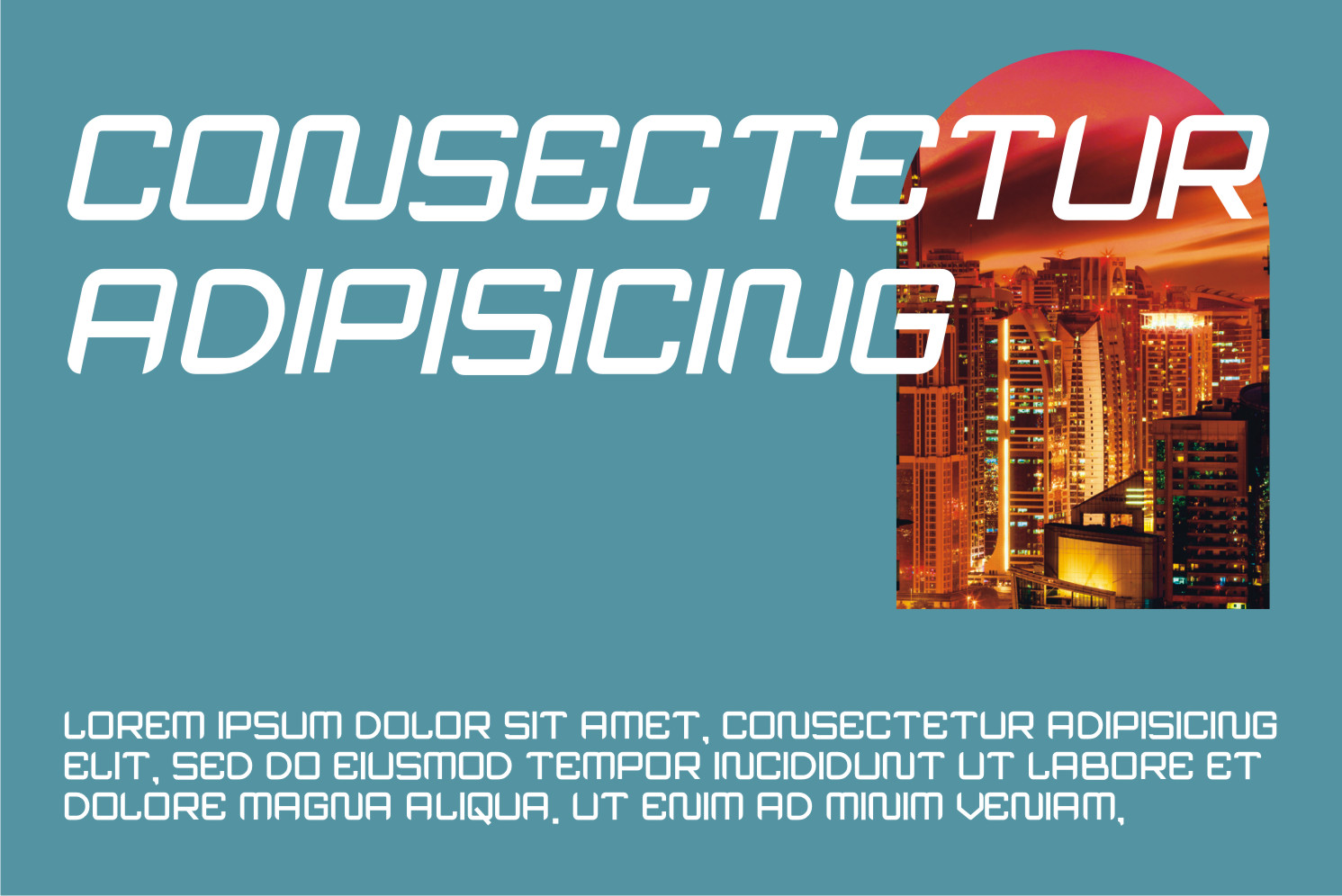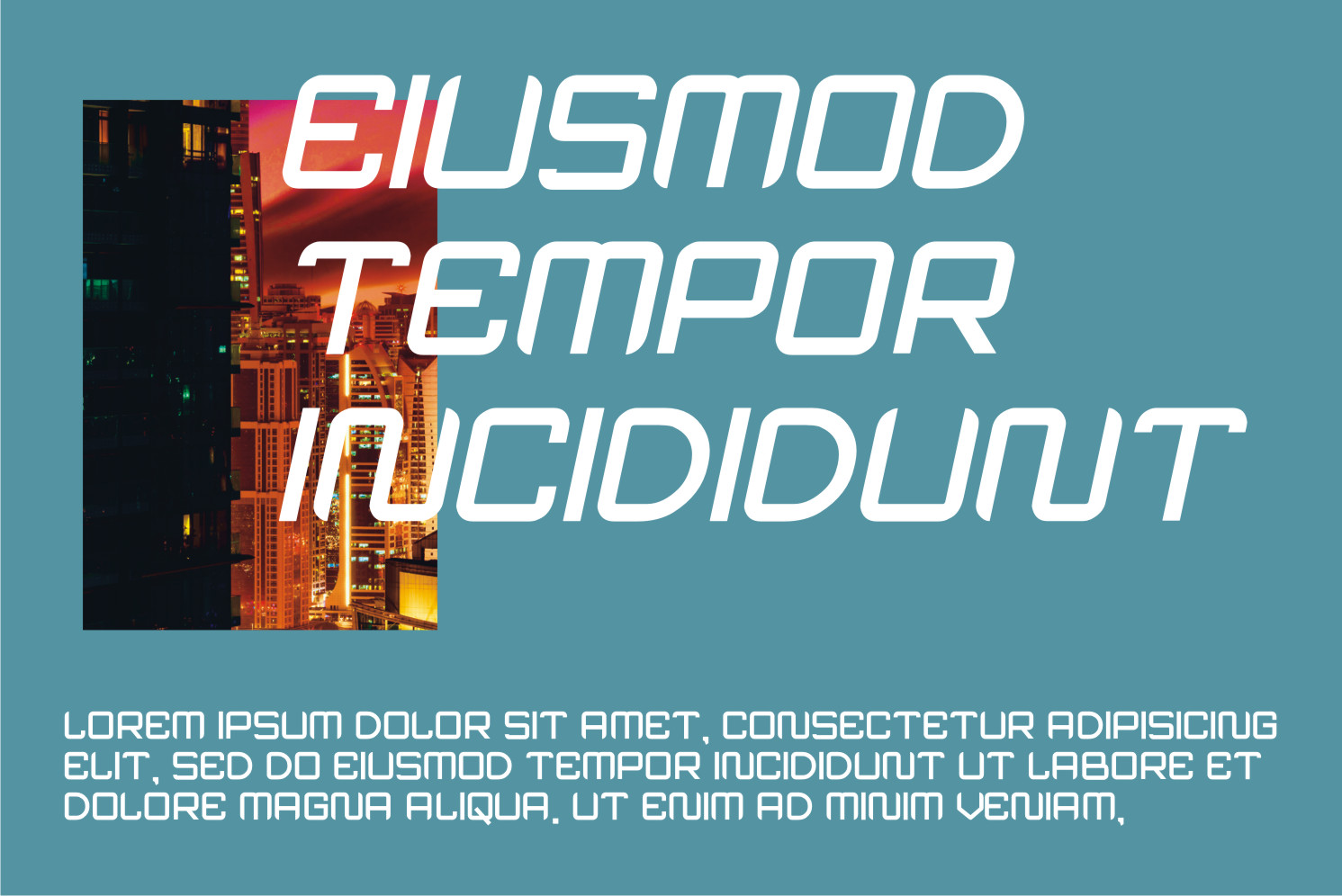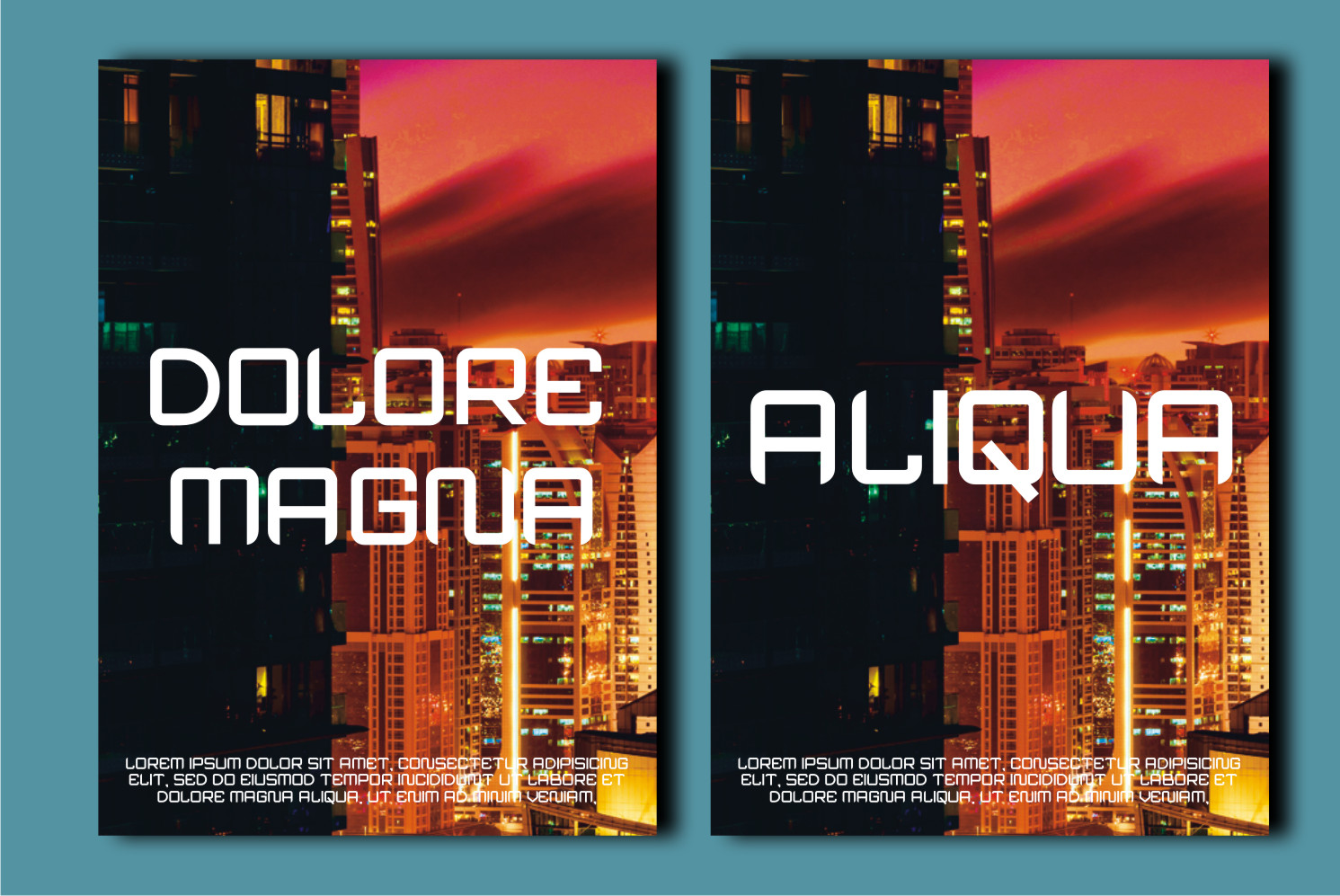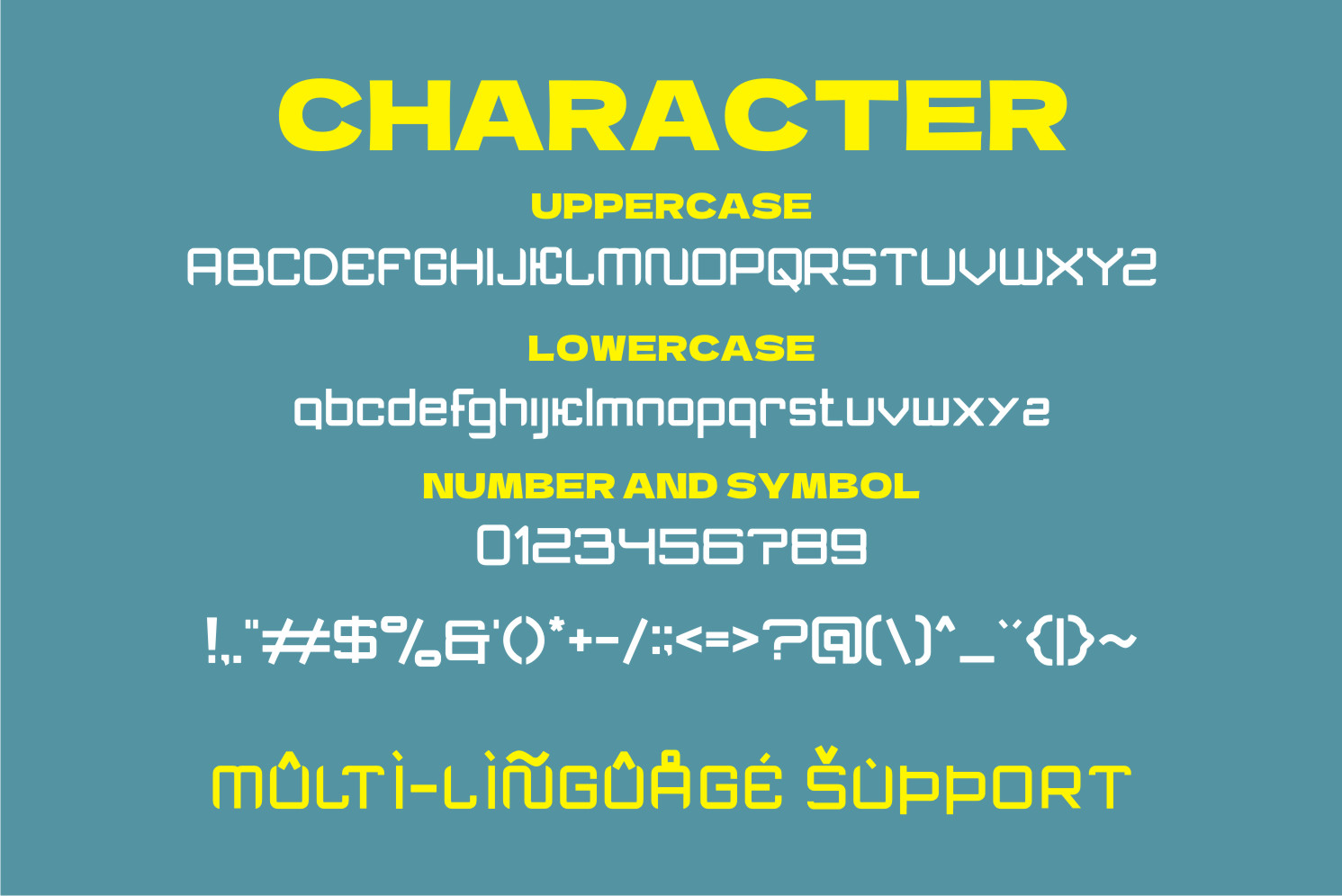
Konecer Font
Konecer Display Font
It’s a cool and robotic styled display font. This font is ideal for writing web designs, business cards, or pretty much anything else that requires a unique, modern touch.